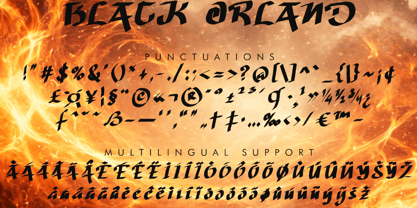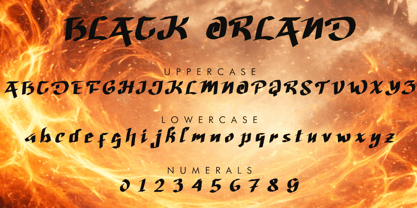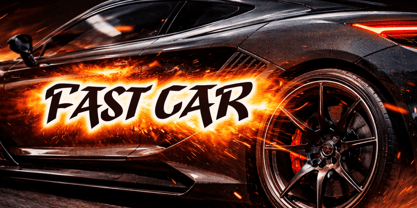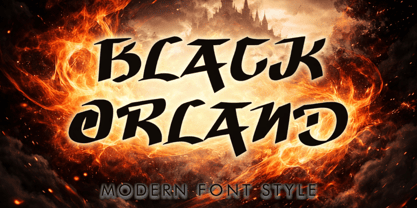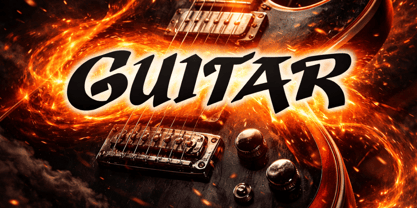
Black Orland
by Yoga Letter
The Black Orland Font Family was designed by Isroni Yoga Prasetya and published by Yoga Letter. Black Orland contains 1 styles.
"Black Orland" is an elegant and modern blackletter font. It features uppercase and lowercase letters, numerals, punctuation, and multilingual support. It's perfect for action movie titles, Halloween, Christmas, Easter, spring, and summer, banners, branding, stickers, logos, patriotic text, back to school text, business branding, screen printing, t-shirt designs, and more.